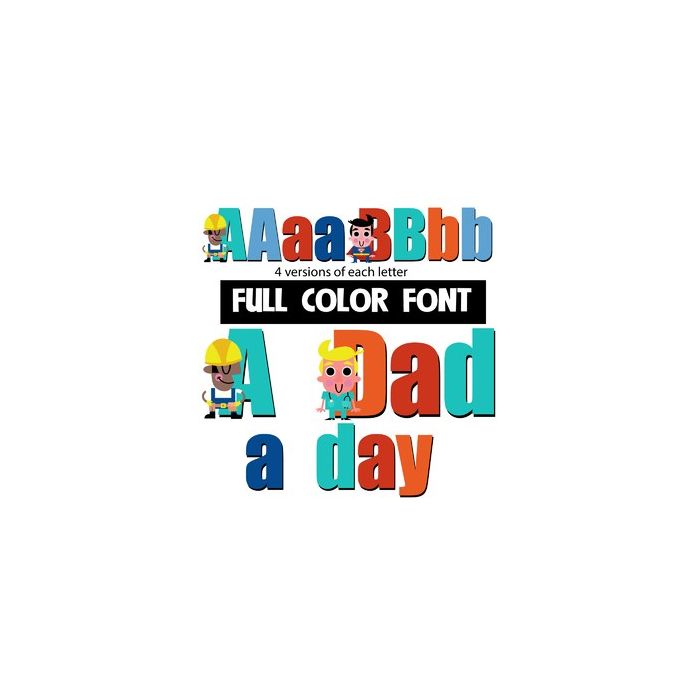
This full-color font features a variety of men along side the uppercase. There is an alt uppercase without dads and two lowercases to choose from when you use the glyph map available Silhouette Studio.